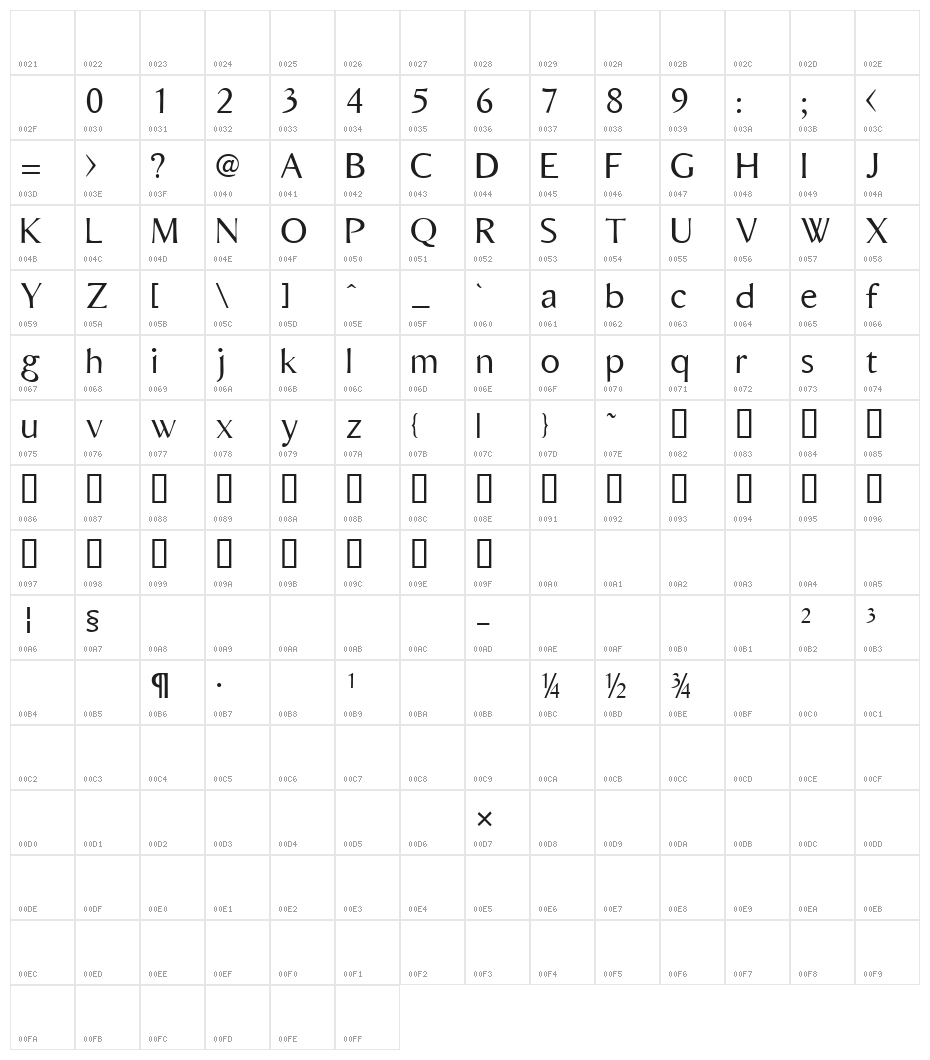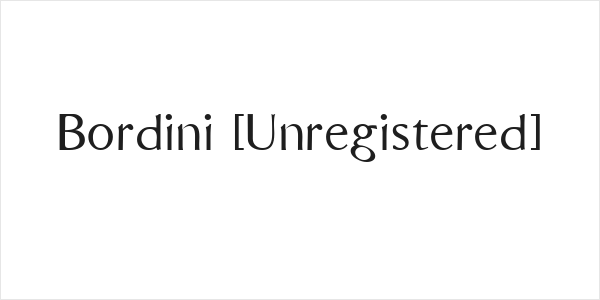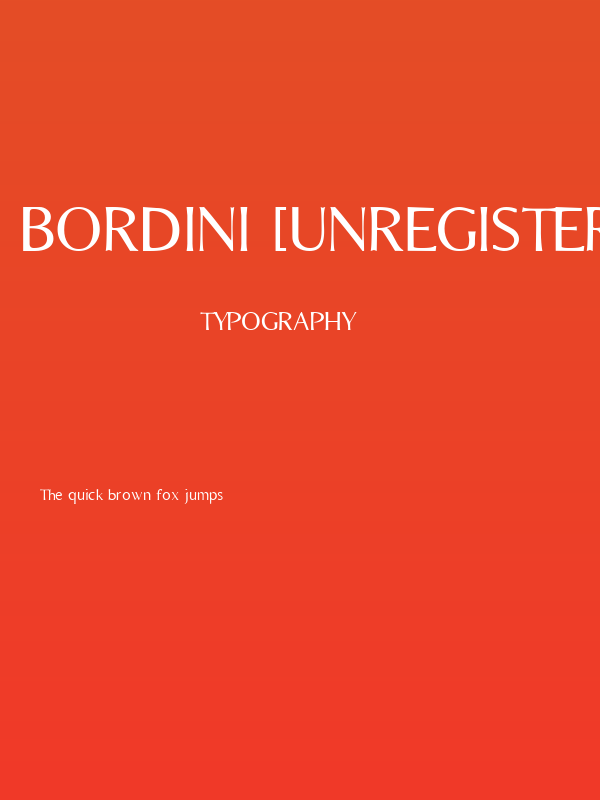
Bordini [Unregistered] Font
Bordini [Unregistered] Description
This font features a distinctive and elegant design, characterized by its graceful curves and slightly tapered strokes. The uppercase letters exhibit a classic and sophisticated style, with a subtle flair that adds a touch of uniqueness. The lowercase letters maintain a harmonious balance, with smooth transitions and a gentle flow. The numerals are clear and legible, complementing the overall aesthetic. This font's design is both timeless and versatile, making it suitable for a variety of applications. Its refined appearance is ideal for projects that require a touch of elegance and sophistication.
Overall StyleClassic
Proposed ProjectsIdeal for wedding invitations, luxury branding, editorial design, and high-end product packaging.